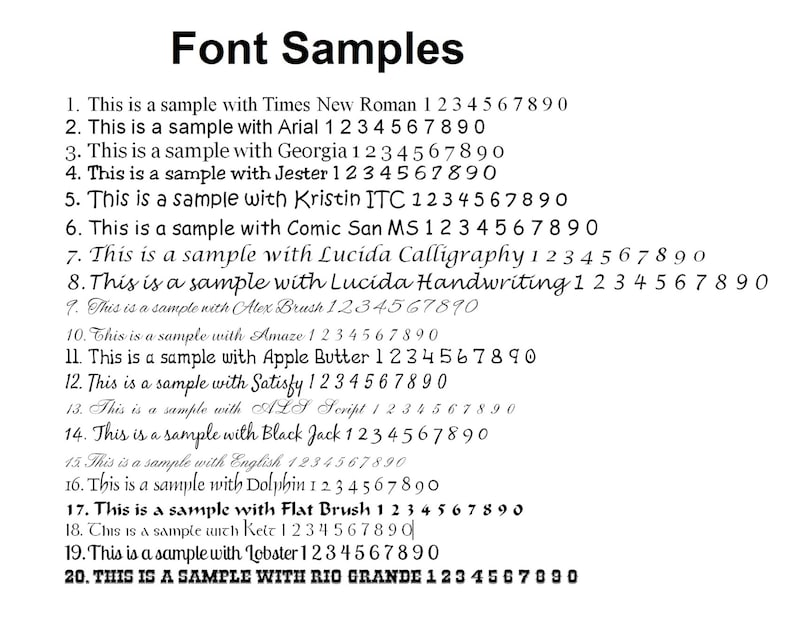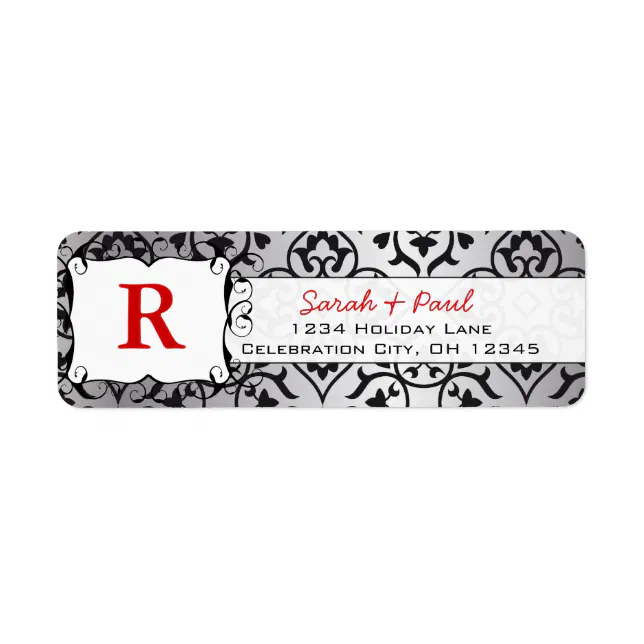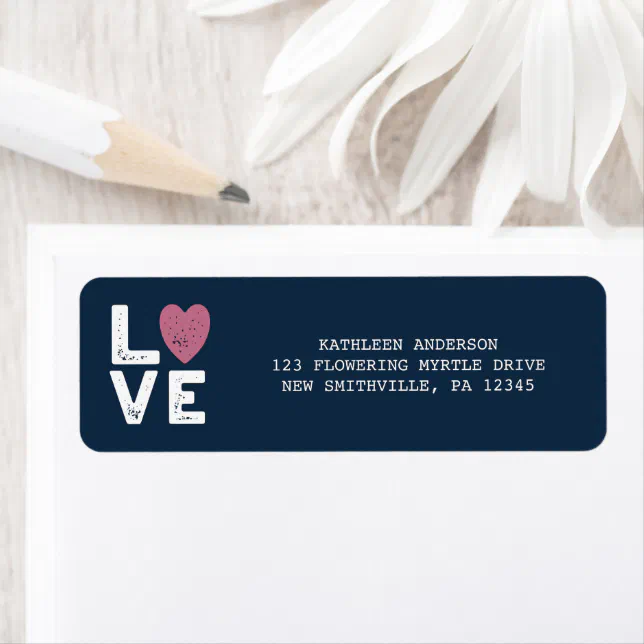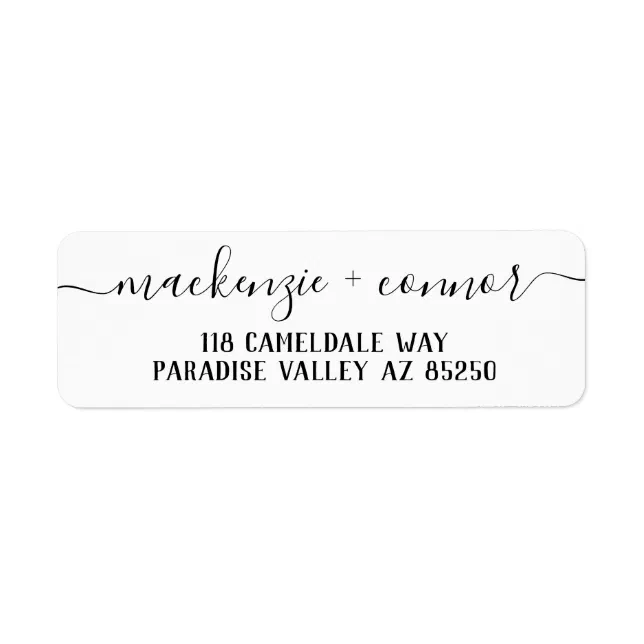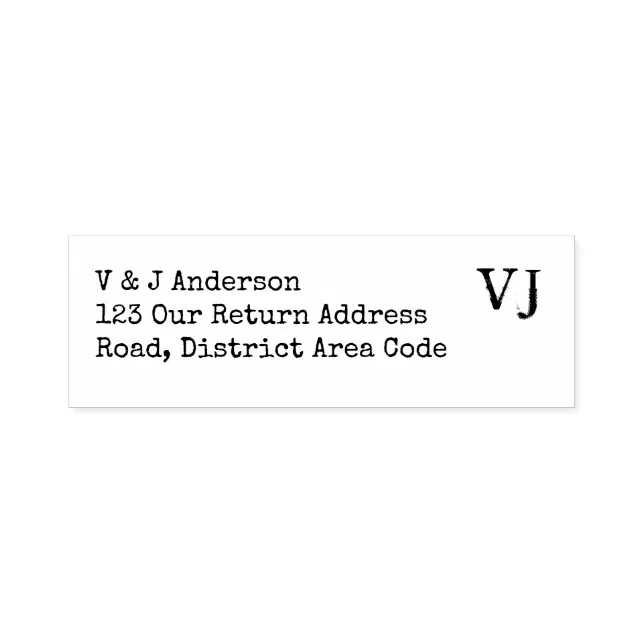
Good Font For Return Address Labels . maybe this is in your own wedding planning etiquette book, but not all of us have the time or money or talent to. Creating return address labels in word can save you time and. how to choose the right font. are you looking for the best font to use for address labels in microsoft word? Your label is more than just words. how to make return address labels in word. The font can help express a mood,. It’s all about legibility and matching your brand’s vibe. 23 fonts for address labels that show off your design sensibility. Word offers a wide range of free fonts that you can use, making. to ensure your address labels look professional and clear, select a suitable font for address labels that aligns with your brand’s style. choosing the right font for labels? The font style, colour and size makes a big statement.
The font style, colour and size makes a big statement. how to choose the right font. 23 fonts for address labels that show off your design sensibility. Creating return address labels in word can save you time and. are you looking for the best font to use for address labels in microsoft word? how to make return address labels in word. to ensure your address labels look professional and clear, select a suitable font for address labels that aligns with your brand’s style. Your label is more than just words. maybe this is in your own wedding planning etiquette book, but not all of us have the time or money or talent to. Word offers a wide range of free fonts that you can use, making.
Good Font For Return Address Labels how to make return address labels in word. Word offers a wide range of free fonts that you can use, making. how to make return address labels in word. are you looking for the best font to use for address labels in microsoft word? Creating return address labels in word can save you time and. It’s all about legibility and matching your brand’s vibe. 23 fonts for address labels that show off your design sensibility. choosing the right font for labels? to ensure your address labels look professional and clear, select a suitable font for address labels that aligns with your brand’s style. Your label is more than just words. The font style, colour and size makes a big statement. The font can help express a mood,. how to choose the right font. maybe this is in your own wedding planning etiquette book, but not all of us have the time or money or talent to.
Fancy Font Custom Return Address Label Personalized MATTE Good Font For Return Address Labels maybe this is in your own wedding planning etiquette book, but not all of us have the time or money or talent to. how to choose the right font. 23 fonts for address labels that show off your design sensibility. Word offers a wide range of free fonts that you can use, making. The font can help. Good Font For Return Address Labels.
Return Address Labels Save the Date Script Font Good Font For Return Address Labels how to make return address labels in word. are you looking for the best font to use for address labels in microsoft word? Word offers a wide range of free fonts that you can use, making. The font can help express a mood,. maybe this is in your own wedding planning etiquette book, but not all of. Good Font For Return Address Labels.
Typewriter Font Monogram Return Address Stamp Zazzle Good Font For Return Address Labels how to make return address labels in word. The font can help express a mood,. maybe this is in your own wedding planning etiquette book, but not all of us have the time or money or talent to. Creating return address labels in word can save you time and. how to choose the right font. to. Good Font For Return Address Labels.
handwritten font return address label with heart Good Font For Return Address Labels are you looking for the best font to use for address labels in microsoft word? how to make return address labels in word. It’s all about legibility and matching your brand’s vibe. The font style, colour and size makes a big statement. 23 fonts for address labels that show off your design sensibility. choosing the right. Good Font For Return Address Labels.
Return Address Label Template Word at Shelley Heffner blog Good Font For Return Address Labels 23 fonts for address labels that show off your design sensibility. Your label is more than just words. Word offers a wide range of free fonts that you can use, making. how to choose the right font. are you looking for the best font to use for address labels in microsoft word? The font style, colour and. Good Font For Return Address Labels.
80 Small Personalized Return Address Labels Letters Alphabet Monogram Good Font For Return Address Labels The font can help express a mood,. 23 fonts for address labels that show off your design sensibility. It’s all about legibility and matching your brand’s vibe. Creating return address labels in word can save you time and. choosing the right font for labels? maybe this is in your own wedding planning etiquette book, but not all. Good Font For Return Address Labels.
Dual font return address label Zazzle Good Font For Return Address Labels maybe this is in your own wedding planning etiquette book, but not all of us have the time or money or talent to. It’s all about legibility and matching your brand’s vibe. to ensure your address labels look professional and clear, select a suitable font for address labels that aligns with your brand’s style. The font style, colour. Good Font For Return Address Labels.
LOVE Graphic Typewriter Font Return Address Label Zazzle Good Font For Return Address Labels how to choose the right font. are you looking for the best font to use for address labels in microsoft word? maybe this is in your own wedding planning etiquette book, but not all of us have the time or money or talent to. Creating return address labels in word can save you time and. The font. Good Font For Return Address Labels.
HANDWRITTEN font return address label stickers by LabelStickers Good Font For Return Address Labels Word offers a wide range of free fonts that you can use, making. are you looking for the best font to use for address labels in microsoft word? maybe this is in your own wedding planning etiquette book, but not all of us have the time or money or talent to. The font style, colour and size makes. Good Font For Return Address Labels.